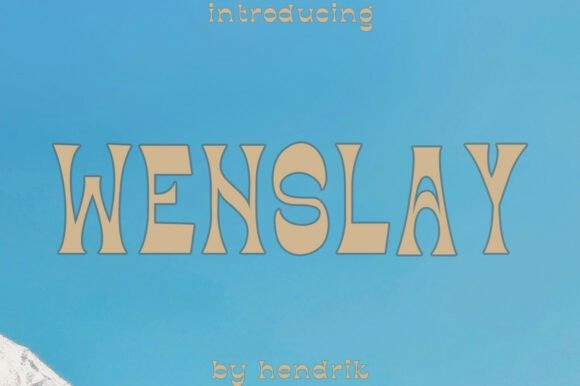
Wenslay Font
Designer: Hendrik studio
Wenslay Font is a modern serif font that blends elegance, classicism, and luxury into one harmonious look. Featuring bold yet subtle curves, this font conveys a premium and sophisticated feel suitable for a variety of exclusive design needs.
With its artistic serif character and balanced letter proportions, Wenslay is ideal for logos, fashion branding, editorials, wedding invitations, packaging, and even sophisticated social media content. Its classic modern look creates a strong, timeless, and attention-grabbing visual identity.